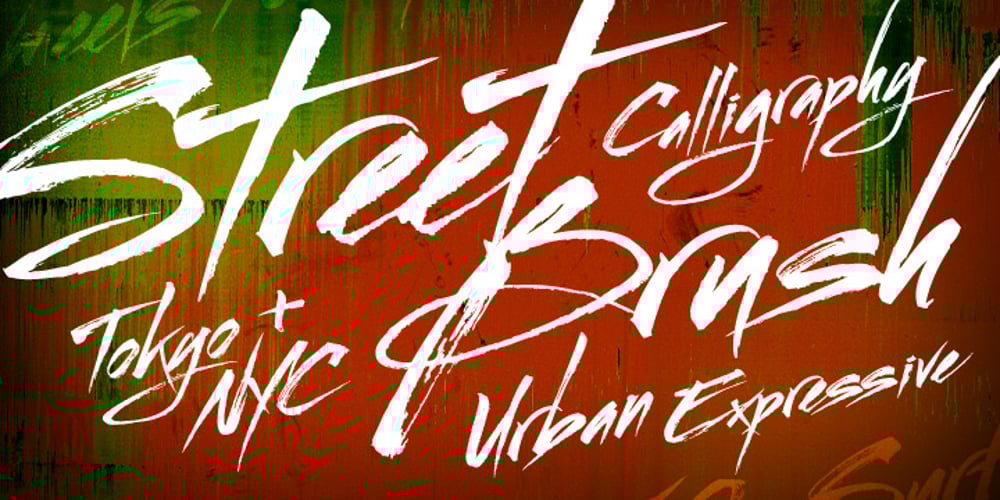
Streetbrush Font Family was designed by Robert Arnow and published by Robert Arnow. Streetbrush contains 1 styles and family package options. When I was in high school, I would wreck my notebooks with multiple layers of graffiti tags, which would start in the margins, and then creep in to cover the entire page. I developed a sensibility towards a very fast, expressive use of my hand, which later easily and naturally translated into brush. I used this style typographically on several projects throughout the years, and even turned it into a signature illustration style. Recently, by repeating letters hundreds of times each with brush on paper, this ad-hoc brush style became Streetbrush. The style is characterized by a unique blend of urban grafitti meets Asian calligraphy. The font is best used for large titling or signage, as it is extremely detailed and really captures the feeling of a brush pulling ink across a textured surface. That said, the font will also work well for body copy, and includes most basic symbols. The font has some ligatures, mainly for legibility.